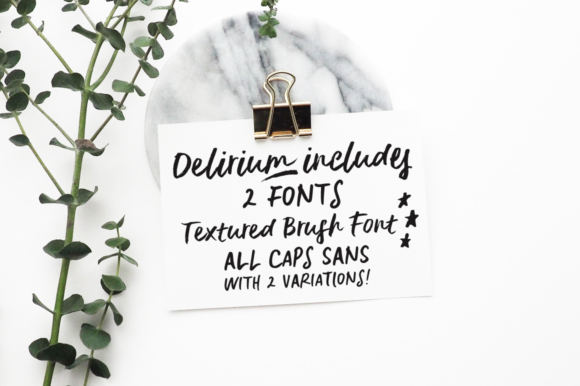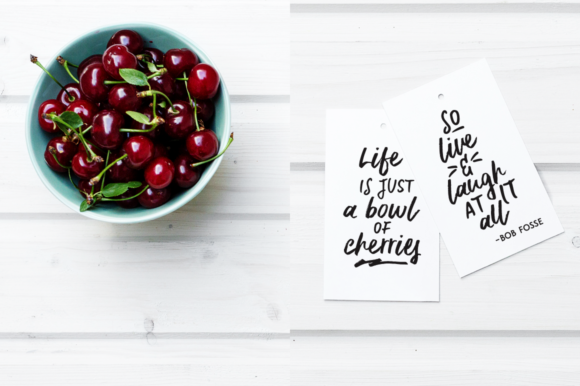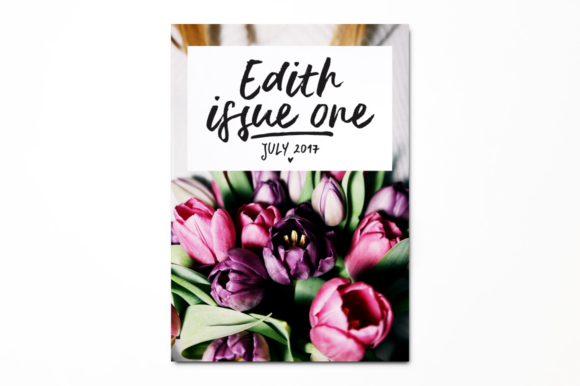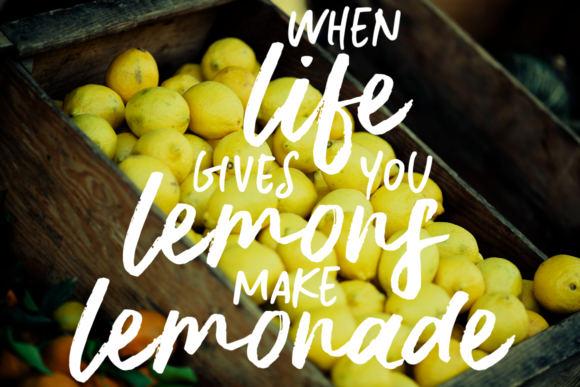
About Delirium Font
Delirium is a cool and paint brushed script font. It is suitable for any branding project like logo, t-shirt printing, sporting design, and many more. It will look outstanding in a wide range of contexts.